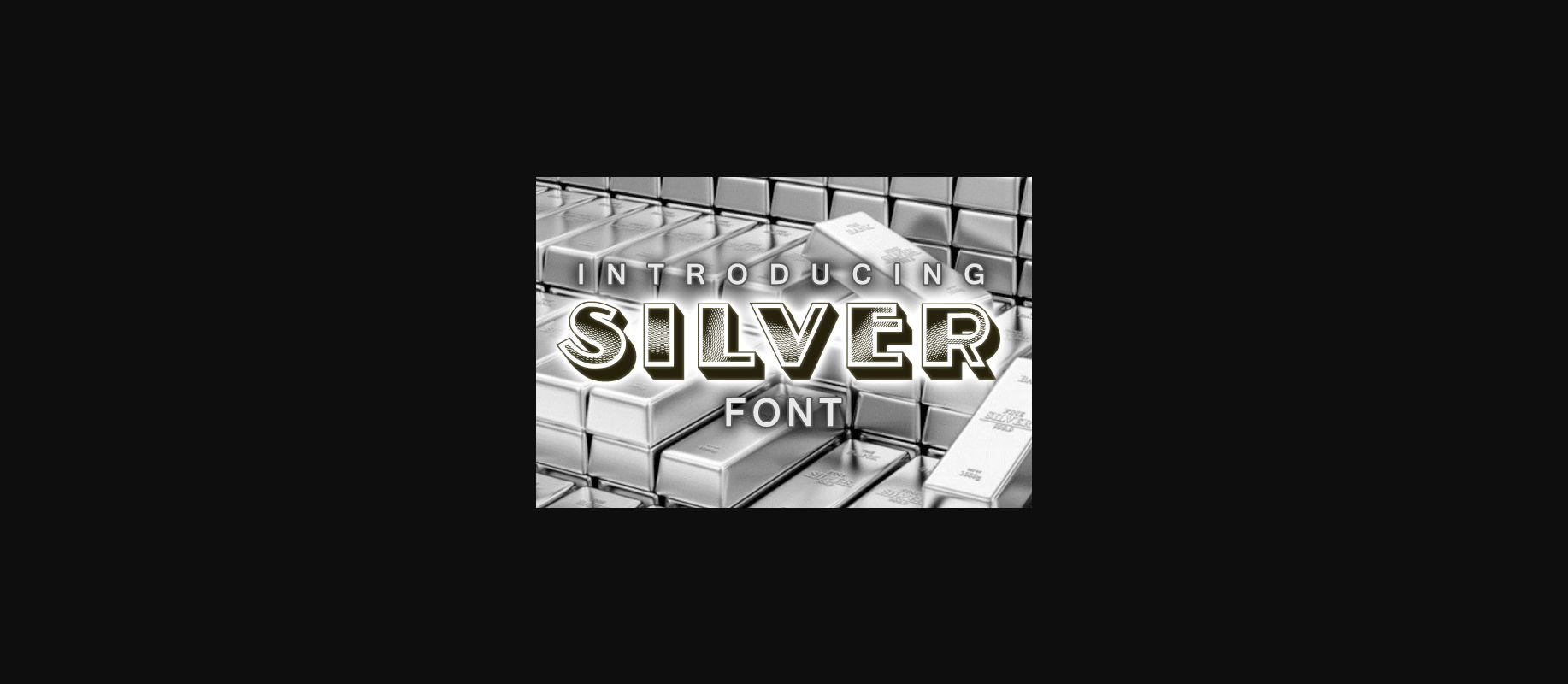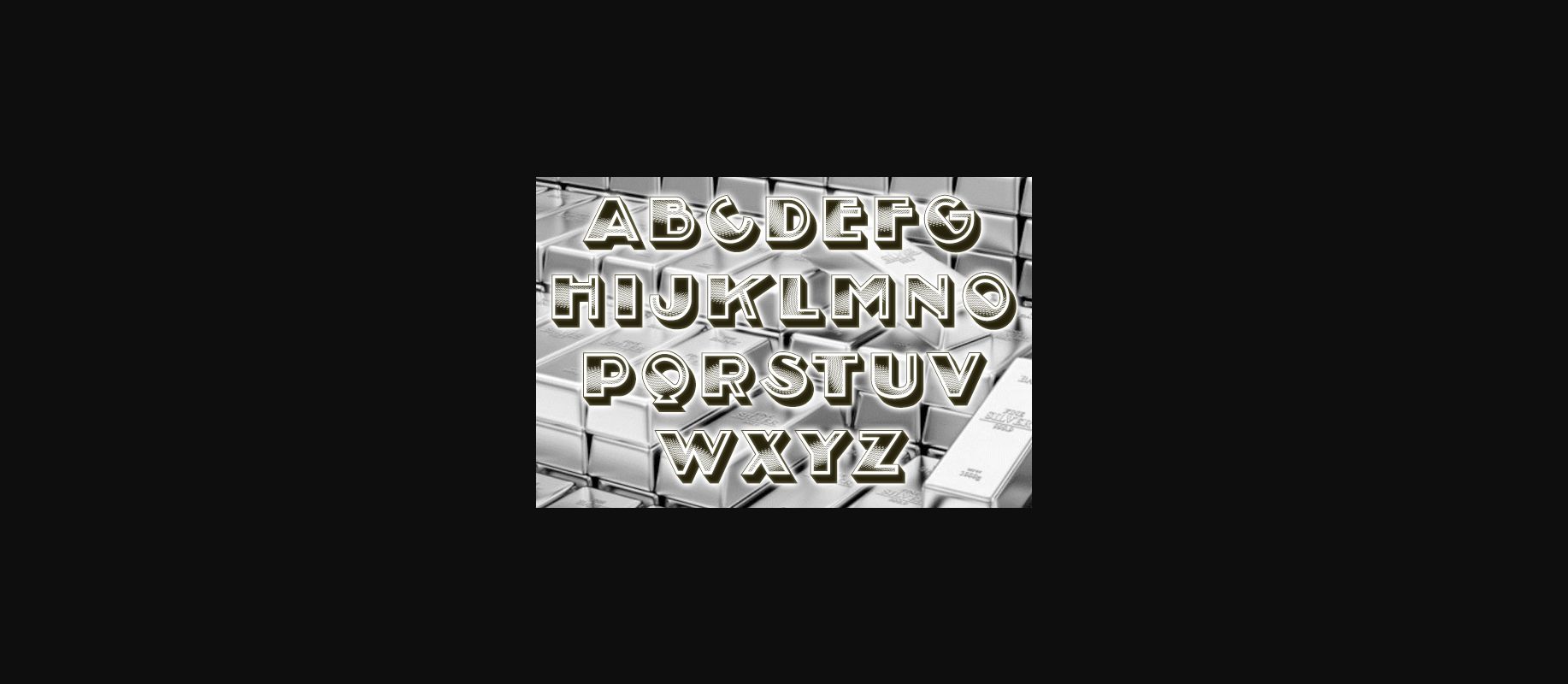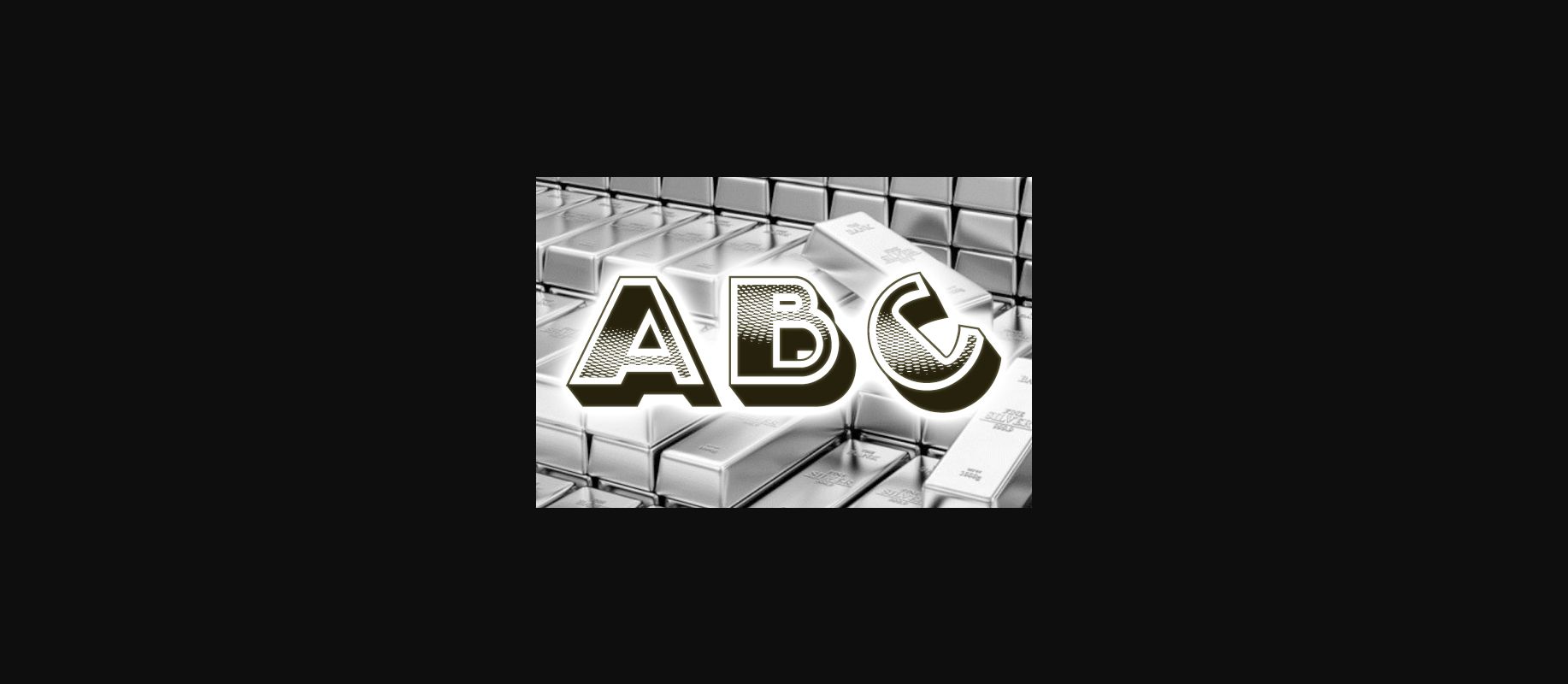
HomeDecorative FontsSilver Font Decorative Fonts Silver Font FacebookTwitterPinterestWhatsApp 1 of 5 ... Silver Font Poster 2... Silver Font Poster 3... Silver Font Poster 4... Silver Font Poster 5... About Silver Font Silver is an awesome decorative 3D font. Get inspired by its unique look and create amazing logos, banners, flyers and much more! DOWNLOAD NOW 144 0 People also explored Saltire Font Eillaria Font Angel Maleficent Font Belista Font Misters Font Earter Unicorn Font Baby Honey Font Schramberg Font Feeling Homazing Font Sutra Dara Font Leipzig Antique Regular Balleho Font TagsSilverSilver Font Previous articleSanta Ugly Sweater FontNext articleBaiser Font LEAVE A REPLY Cancel reply Comment: Please enter your comment! Name:* Please enter your name here Email:* You have entered an incorrect email address! Please enter your email address here Website: Save my name, email, and website in this browser for the next time I comment. Unlock Endless Creativity with the FREE September Clipart Huge Bundle (Valued at $700!) Personal Use Free Denisha Personal Use Free Read more Strings Personal Use Free Read more Cranberry Gin Personal Use Free Read more Wallabys Junior Personal Use Free Read more BLOG Exploring Font Trends Shaping Communication in the Digital Era Fonts, like all design elements, are subject to trends. They play a crucial role in communicating a brand's personality,... The 10 Best Handwriting Fonts to Add Personality to Your Designs Transform Your Website: Elevate Your Typography with 7 Best Web Font Generators Free Fonts Risk: Why Free Fonts Can Be Dangerous for Designers